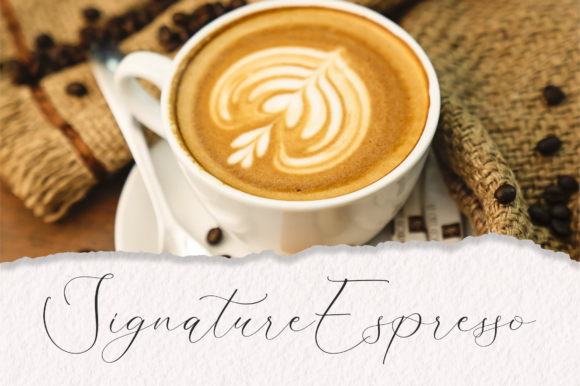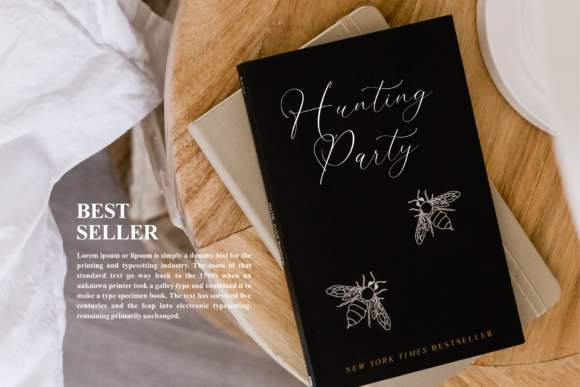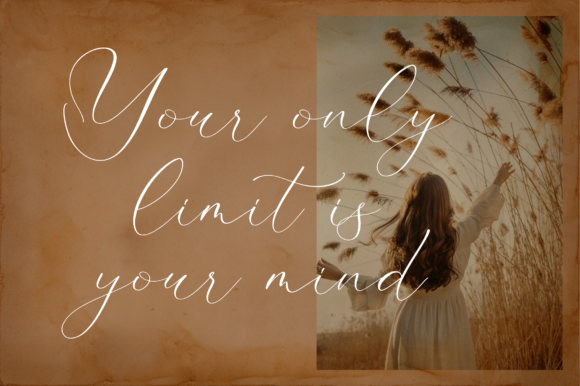
Introduction to Nusantyra Cantiva Font
Imagine yourself sipping a cup of coffee, surrounded by beautiful stationery, and the urge to create something special strikes you. You grab your pen and start designing a love letter or a wedding invitation, but something is missing. That’s when you stumble upon the perfect font – Nusantyra Cantiva Font. This delicate, thin lettered handwritten font adds a touch of elegance to any design project, making it a valuable resource for designers.
With its high-quality design and transparent background, the Nusantyra Cantiva Font is a game-changer for any creative project. Whether you’re working on a design resource or a personal project, this font is sure to elevate your work. The best part? It’s available for free download, making it accessible to designers of all levels.
- High-quality font design suitable for creative projects and designs.
- Unique script font with a transparent background, allowing for easy customization and layering.
- Designed to work well in both digital and print applications, making it a versatile design resource.
- Suitable for use in a variety of creative projects, including logos, branding, and editorial content.
Honest Review: Nusantyra Cantiva Font
I recently stumbled upon the Nusantyra Cantiva Font, a free design resource that caught my attention with its unique, hand-crafted feel. As a designer, I’m always on the lookout for high-quality fonts that can elevate my creative projects. In this review, I’ll share my thoughts on what works well and what could be improved.
- ✨ Unique, hand-crafted design that adds a touch of elegance to any project.
- ✨ High-quality font that’s perfect for creative projects requiring a personal touch.
- ✨ Transparent background makes it easy to use in various design applications.
- ⚠️ Limited character set, which may not be suitable for long-form content.
- ⚠️ Some characters may not display correctly in certain font sizes or styles.
Overall, the Nusantyra Cantiva Font is a great addition to any designer’s toolkit. While it may have some limitations, its unique design and high quality make it a valuable resource for creative projects. If you’re looking for a font that adds a personal touch to your work, I’d definitely recommend giving it a try.
Nusantyra Cantiva Font
The Nusantyra Cantiva Font is a high-quality design resource that offers a unique and elegant touch to your creative projects. With a transparent background, this font can be easily integrated into various design applications.
To get the most out of the Nusantyra Cantiva Font, use it in conjunction with other high-quality design resources, such as graphics and images. Experiment with different font sizes and styles to create a unique and visually appealing design.
The Nusantyra Cantiva Font is ideal for various creative projects, such as:
- Business cards and brochures
- Social media graphics and logos
- Posters and flyers